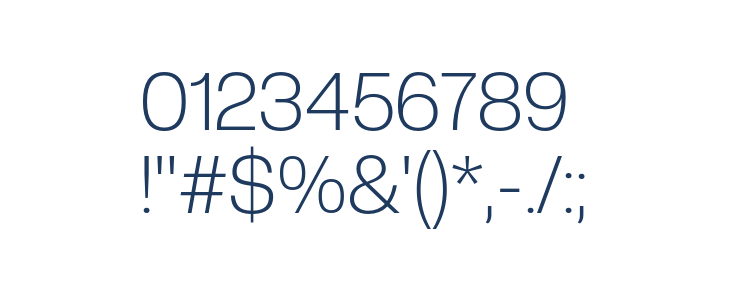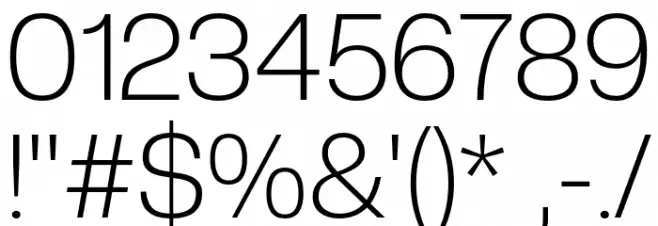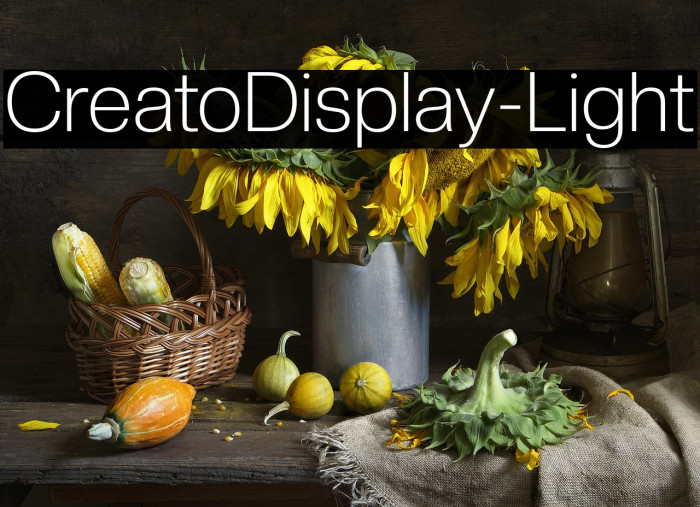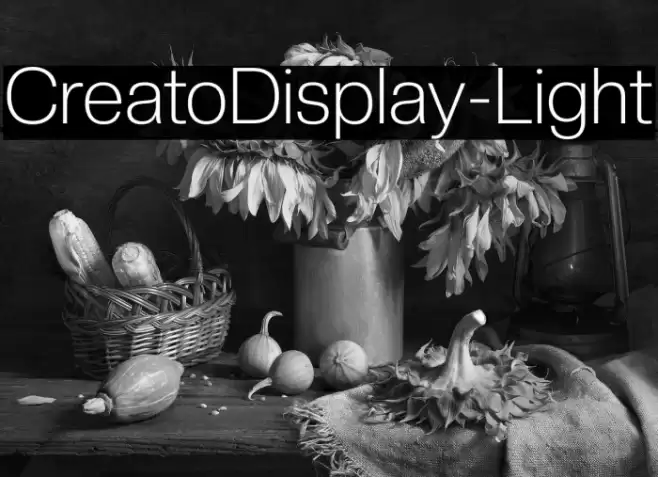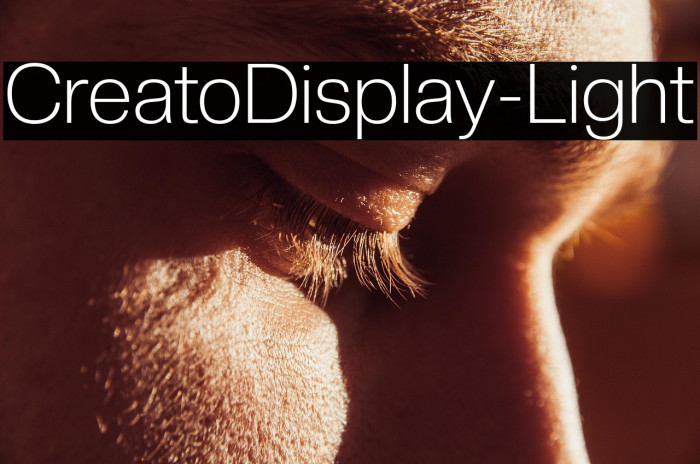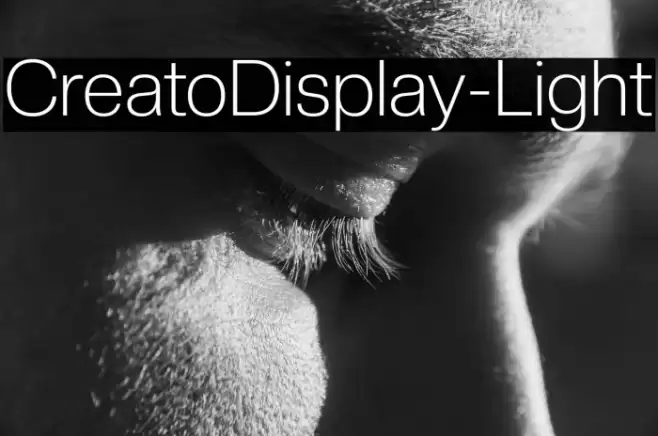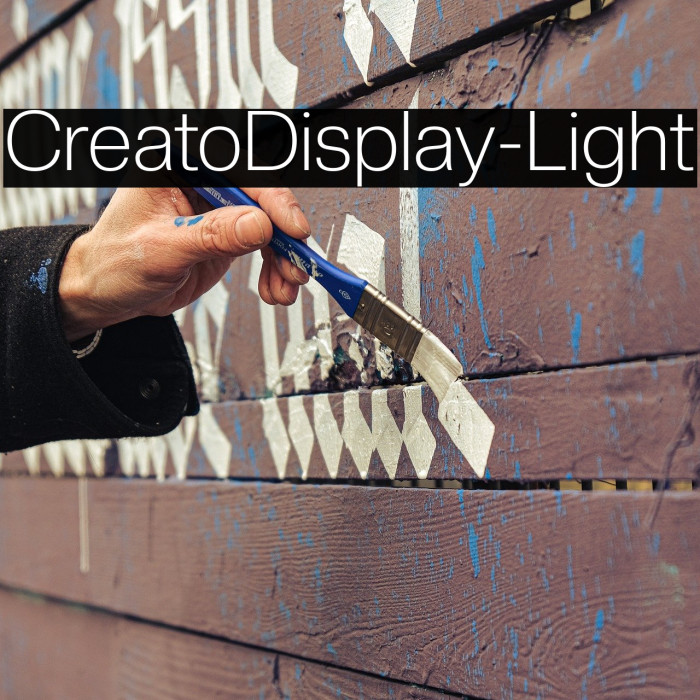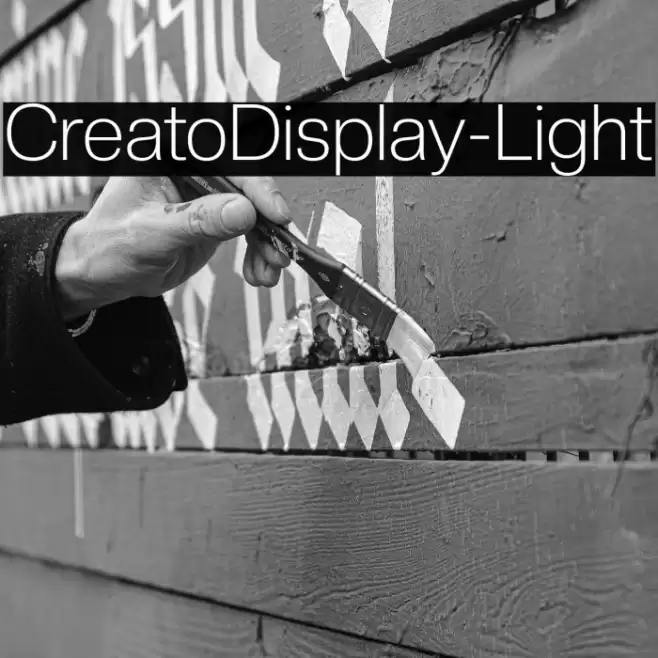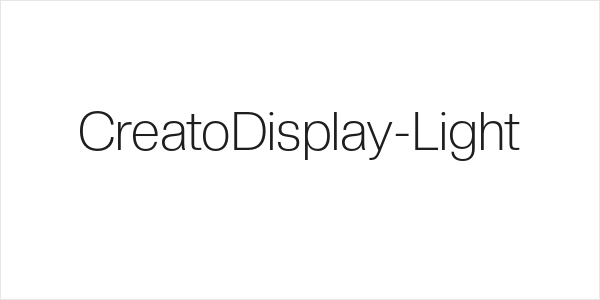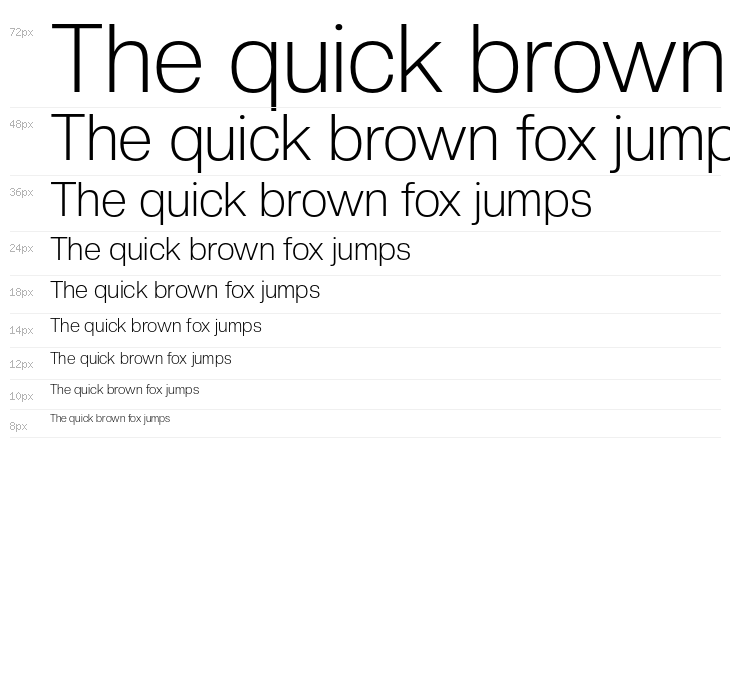
CreatoDisplay-Light Font
CreatoDisplay-Light Description
This font features a clean and modern sans-serif design with a light weight, offering a sleek and minimalist appearance. The characters are evenly spaced with a normal width, providing excellent readability. The strokes are consistent with low contrast, emphasizing simplicity and clarity. Its geometric shapes and uniform lines make it suitable for contemporary design projects, where a subtle yet professional look is desired. The font includes a full set of uppercase and lowercase letters, numbers, and a variety of special characters, making it versatile for various applications.